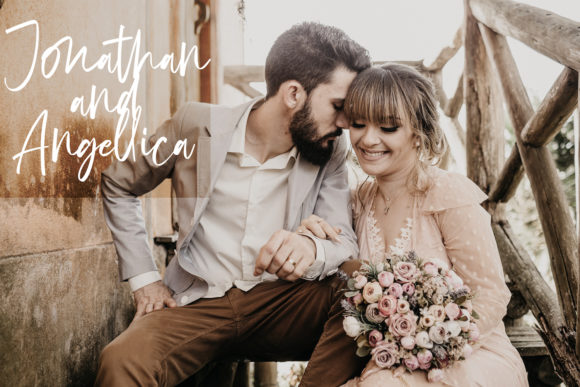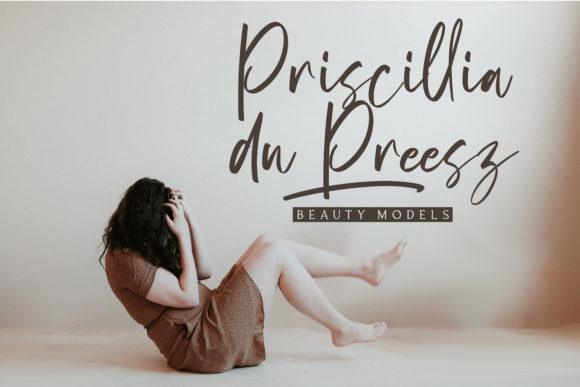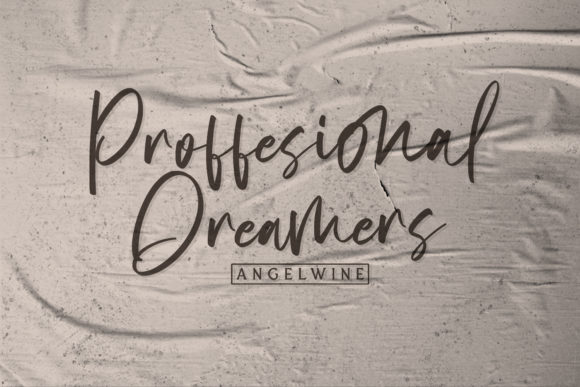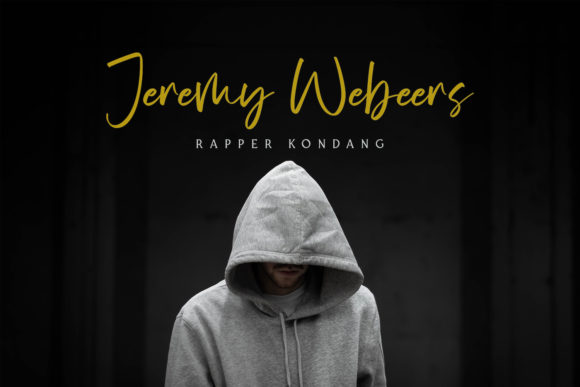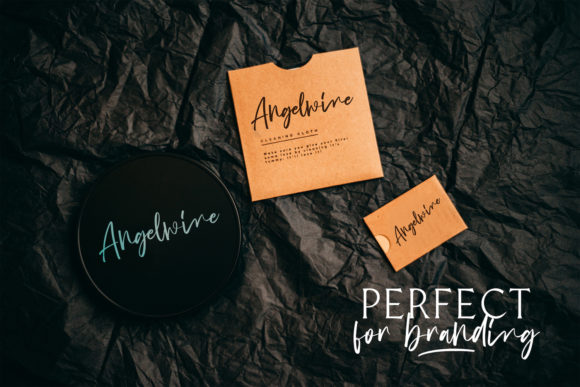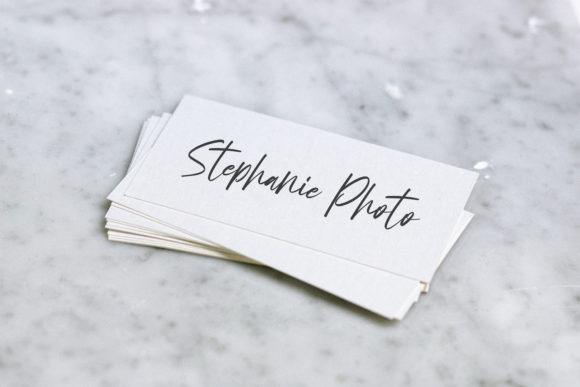
Introducing Angelwine Font: The Perfect Handwritten Script for Your Creative Projects
Are you a designer or crafter looking for a unique and authentic font to elevate your creative projects? Look no further than Angelwine Font, a beautiful handwritten script that exudes a personalized touch. In this article, we’ll dive into the features and benefits of Angelwine Font, and explore how it can be used to add a touch of elegance and sophistication to your designs.
What is Angelwine Font?
Angelwine Font is a handwritten script typeface that boasts an authentic feel, making it perfect for a wide range of creative projects. Its unique and flowing design is reminiscent of handwritten calligraphy, adding a touch of warmth and personality to any design. Whether you’re working on a fashion brand, wedding invitations, business cards, logos, or signatures, Angelwine Font is the ideal choice.
Key Features of Angelwine Font
- Handwritten Script: Angelwine Font is a handwritten script typeface that adds a personal touch to any design.
- Authentic Feel: Its authentic feel makes it perfect for designs that require a unique and organic look.
- Versatile: Angelwine Font can be used for a wide range of creative projects, from fashion brands to wedding invitations and business cards.
- Elegant and Sophisticated: The font’s flowing design and elegant lines make it perfect for designs that require a touch of sophistication.
Benefits of Using Angelwine Font
So, why choose Angelwine Font for your creative projects? Here are just a few benefits of using this beautiful handwritten script:
- Adds a Personal Touch: Angelwine Font adds a personal touch to any design, making it perfect for projects that require a unique and authentic look.
- Enhances Brand Identity: The font’s elegant and sophisticated design makes it perfect for fashion brands and businesses looking to establish a strong brand identity.
- Easy to Read: Despite its handwritten nature, Angelwine Font is easy to read, making it perfect for designs that require a clear and concise message.
- Versatile: Angelwine Font can be used for a wide range of creative projects, making it a valuable addition to any designer’s font library.
Using Angelwine Font in Your Designs
So, how can you use Angelwine Font in your designs? Here are a few ideas to get you started:
- Fashion Brands: Use Angelwine Font to create elegant and sophisticated branding for your fashion label.
- Wedding Invitations: Add a touch of romance and elegance to your wedding invitations with Angelwine Font.
- Business Cards: Use Angelwine Font to create professional and stylish business cards that make a lasting impression.
- Logos and Signatures: Use Angelwine Font to create unique and memorable logos and signatures for your business or personal brand.
Tips and Tricks for Working with Angelwine Font
Here are a few tips and tricks to keep in mind when working with Angelwine Font:
- Use it Sparingly: While Angelwine Font is beautiful, it can be overwhelming if used too much. Use it sparingly to add a touch of elegance and sophistication to your designs.
- Experiment with Colors: Angelwine Font looks great in a variety of colors, so don’t be afraid to experiment and find the perfect hue for your design.
- Pair it with Other Fonts: Angelwine Font pairs well with other fonts, so try pairing it with a bold sans-serif font for a striking contrast.
In conclusion, Angelwine Font is a beautiful handwritten script that adds a personal touch to any design. Its authentic feel, elegant lines, and sophisticated design make it perfect for a wide range of creative projects, from fashion brands to wedding invitations and business cards. With its versatility, ease of use, and timeless design, Angelwine Font is a valuable addition to any designer’s font library.